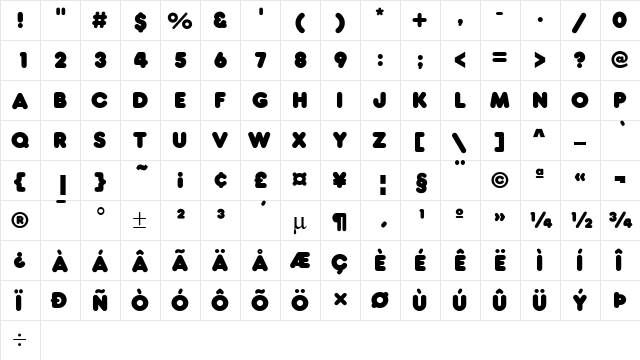
Frankfurter D Regular
Design Context for Frankfurter D Typeface
Frankfurter D is a composed and adaptable typeface that performs quietly and consistently across a wide range of design contexts.